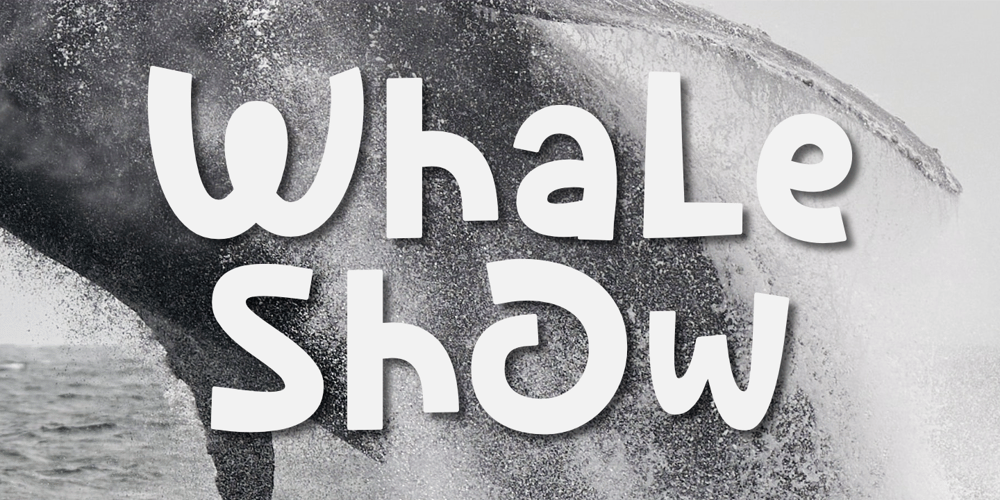
Whale Show Font Family was designed by Nurul Hidayani and published by Olivetype. Whale Show contains 1 styles and family package options. Whale Show is a fun display font with a youthful, whimsical, and bubbly feel, great if you need to create a friendly, playful mood in your design. This font is also quite versatile and easy to work with. You can use it for logos, posters, headlines, etc. So what’s included : Basic Latin Uppercase and Lowercase Numbers, symbols, and punctuations Multilingual Support. Fully accessible without additional design software Simple Installations Works on PC & Mac Thank You.